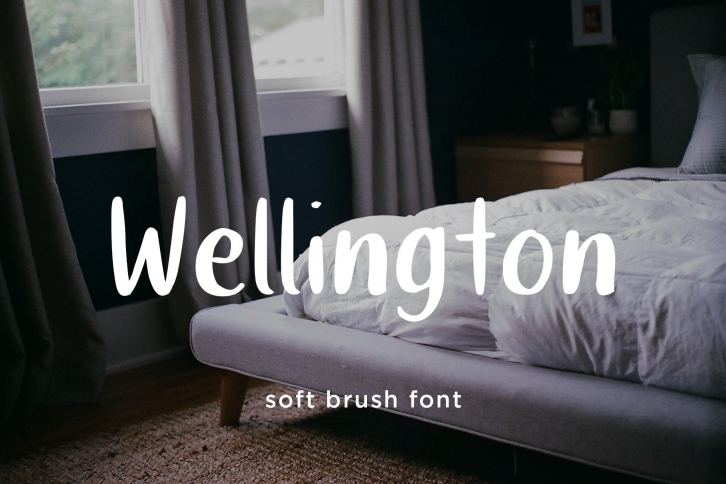
This font was handpainted by ZansariType in Auckland, New Zealand using a basic hand lettering brush and indian ink. The scanned copy was vectorised in Adobe Illustrator and then converted into a font
This font would be perfect for child products, logos and crafts like quote posters